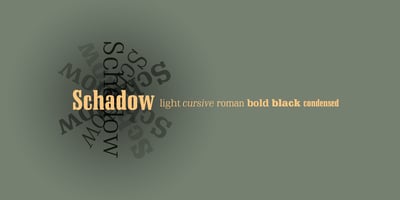
Schadow Font Family was designed by Georg Trump and published by Bitstream. Schadow contains 6 styles and family package options. Designed by Georg Trump in 1938, this typeface was Weber’s answer to Ludwig & Mayer’s Candida.